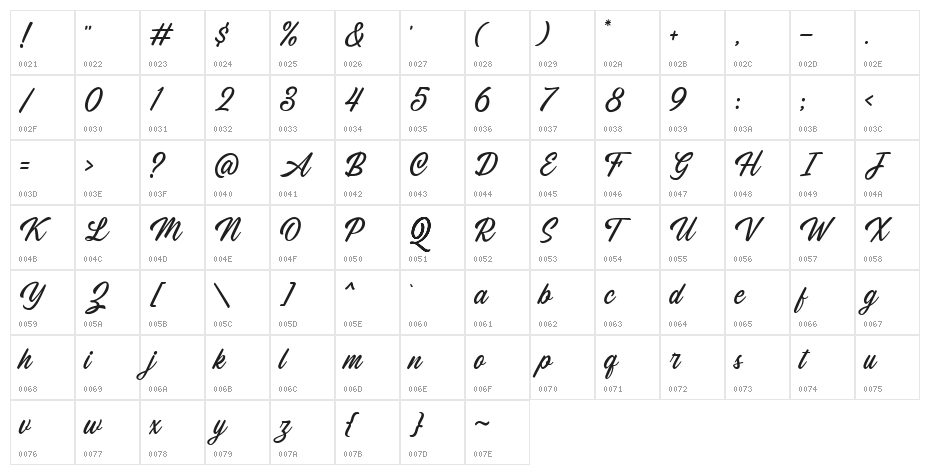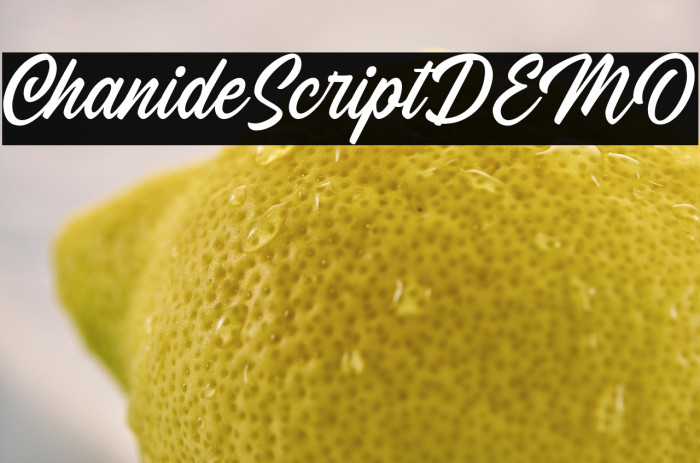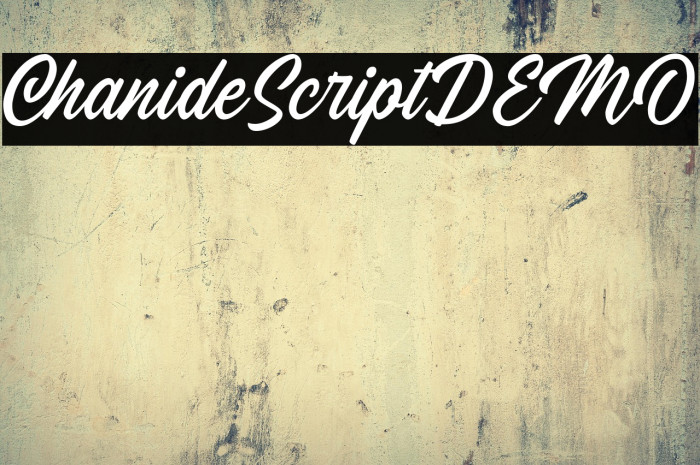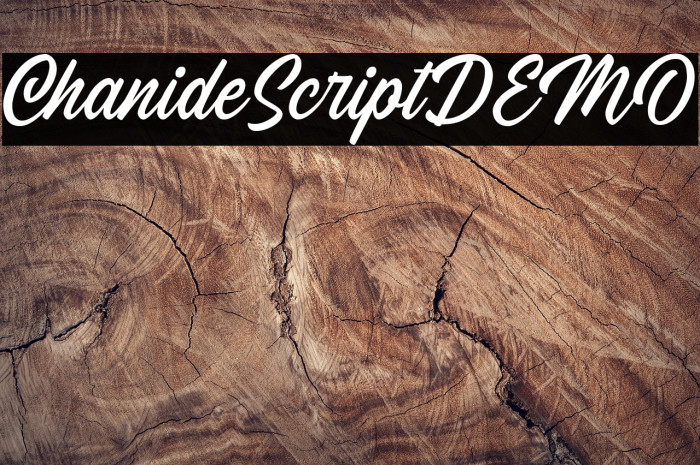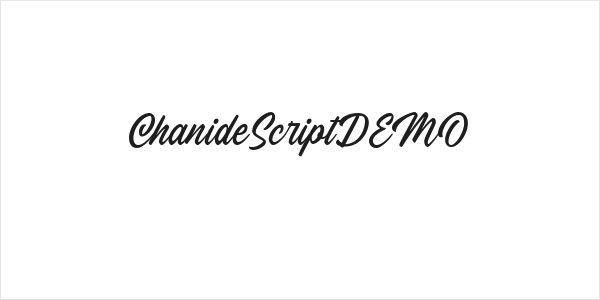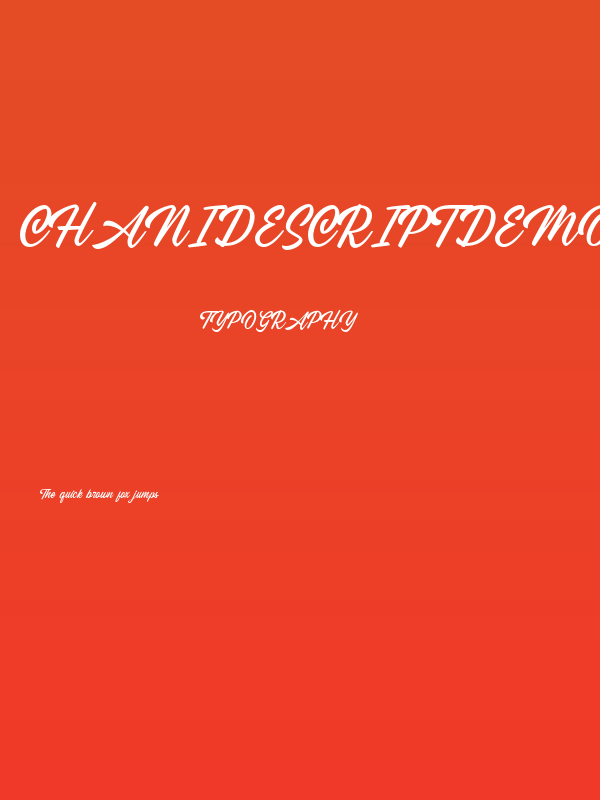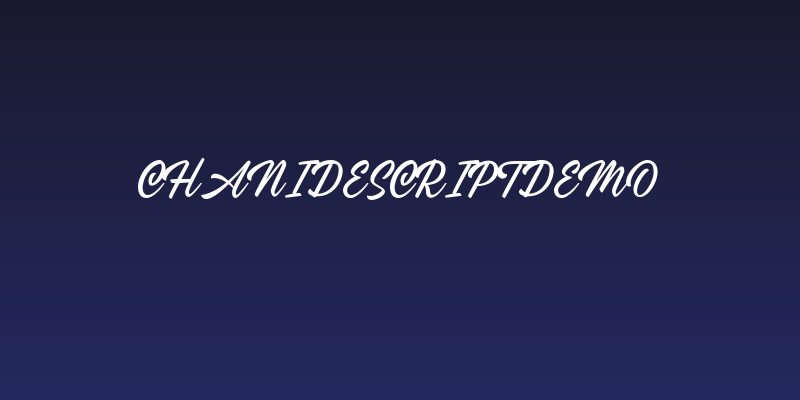
ChanideScriptDEMO Font
ChanideScriptDEMO Description
This script font features elegant, flowing characters with a handwritten style. The uppercase letters are bold and slightly slanted, giving a sense of movement and grace. The lowercase letters maintain a consistent flow, with smooth curves and connections between characters. The numerals are clear and legible, matching the overall style of the alphabet. Special characters are designed with the same fluidity, ensuring a cohesive look across all elements. This font is ideal for projects that require a personal touch, such as invitations, greeting cards, or branding materials.
Overall StyleElegant, Handwritten
Use CaseHeadlines, Invitations, Branding
Proposed ProjectsIdeal for wedding invitations, greeting cards, personal branding, and elegant signage.